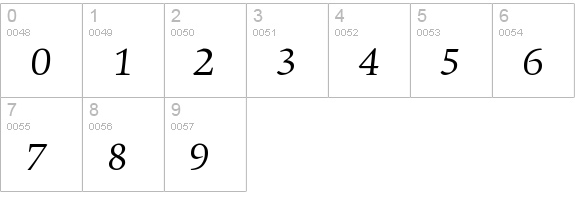
GilgameshBook Italic is a distinctive, italic variant in the GilgameshBook typeface family \xE2\x80\x94 well suited to design and typography projects.
Introducing GilgameshBook Italic font, a timeless and elegant typeface that exudes sophistication and style. With its graceful slanted design, GilgameshBook Italic adds a touch of flair to any project, whether it be a book cover, website header, or promotional material. The sleek lines and flowing curves of this font make it perfect for adding a touch of class to any design. What's even better is that GilgameshBook Italic is available for free download at FontsMarket.com. This means you can easily access this stunning font without any cost, making it a valuable addition to your font collection. Don't miss out on the opportunity to enhance your projects with the beauty of GilgameshBook Italic font - download it now and elevate your designs to the next level.